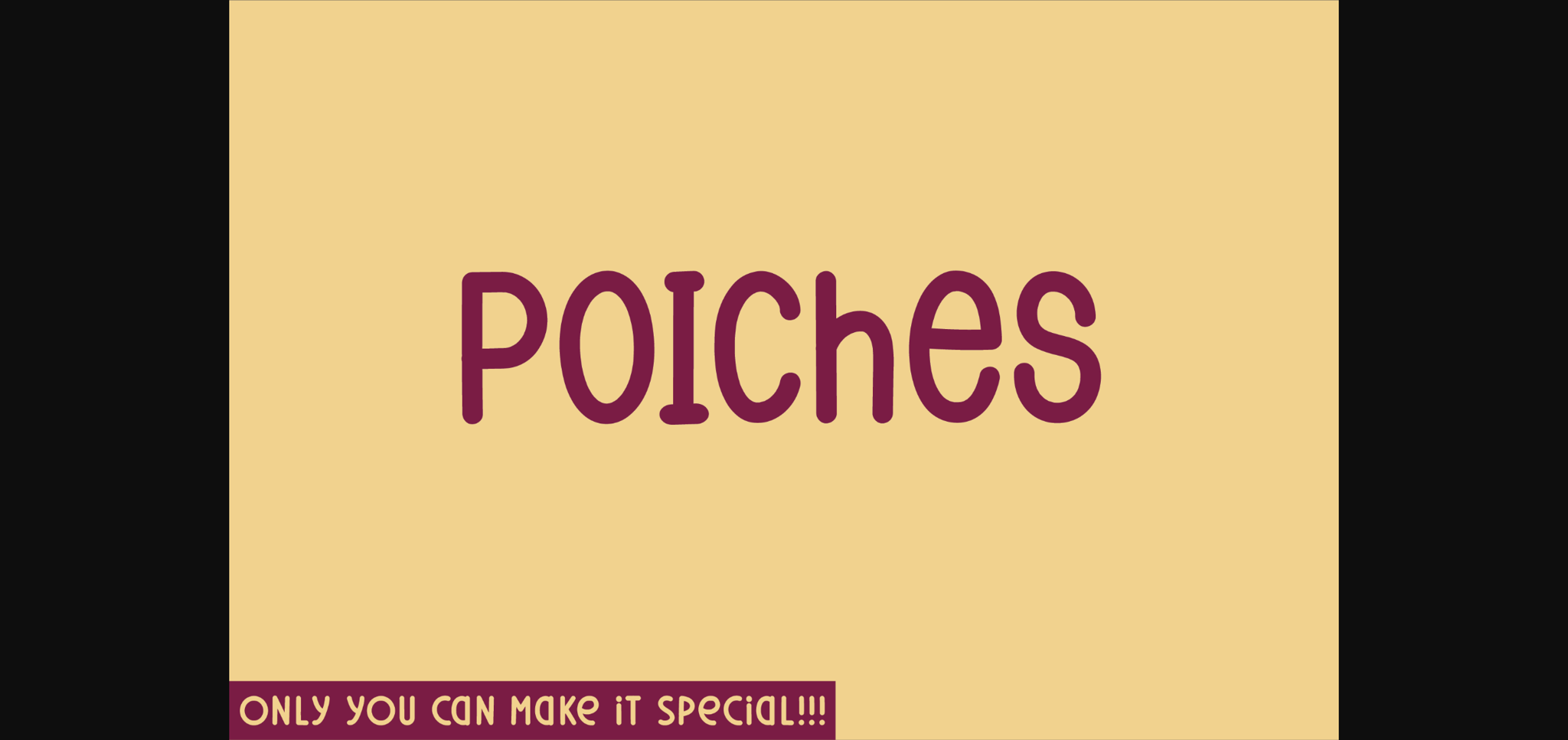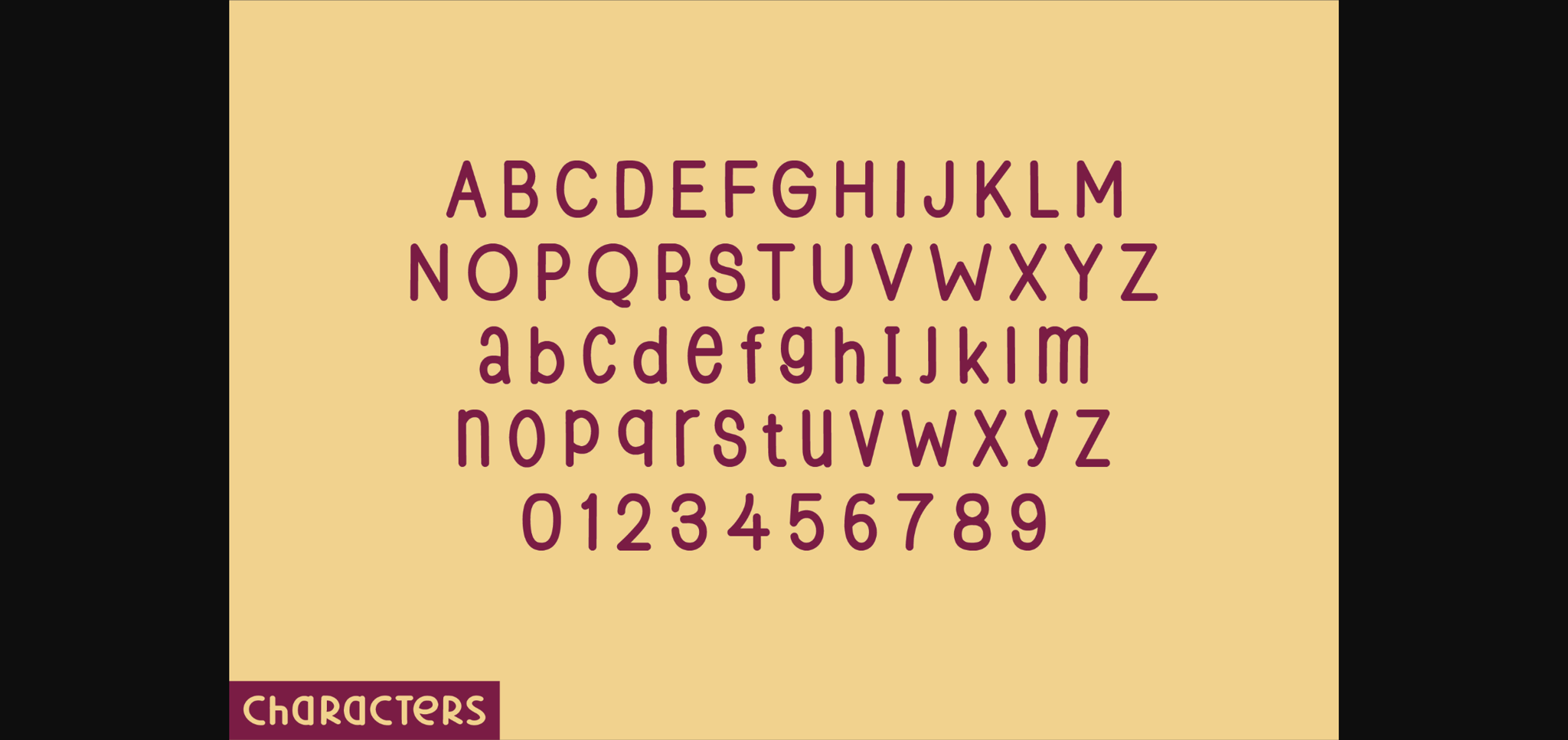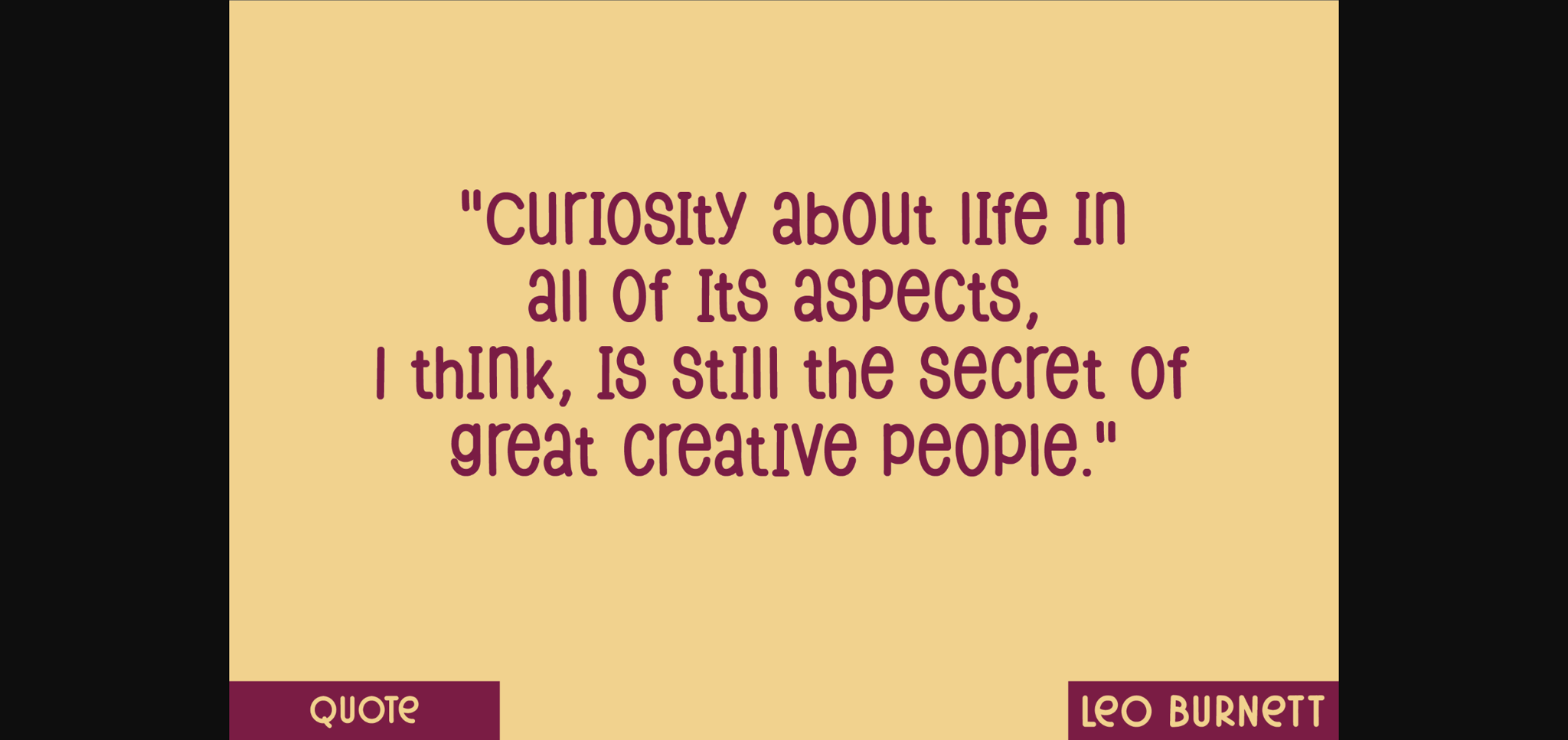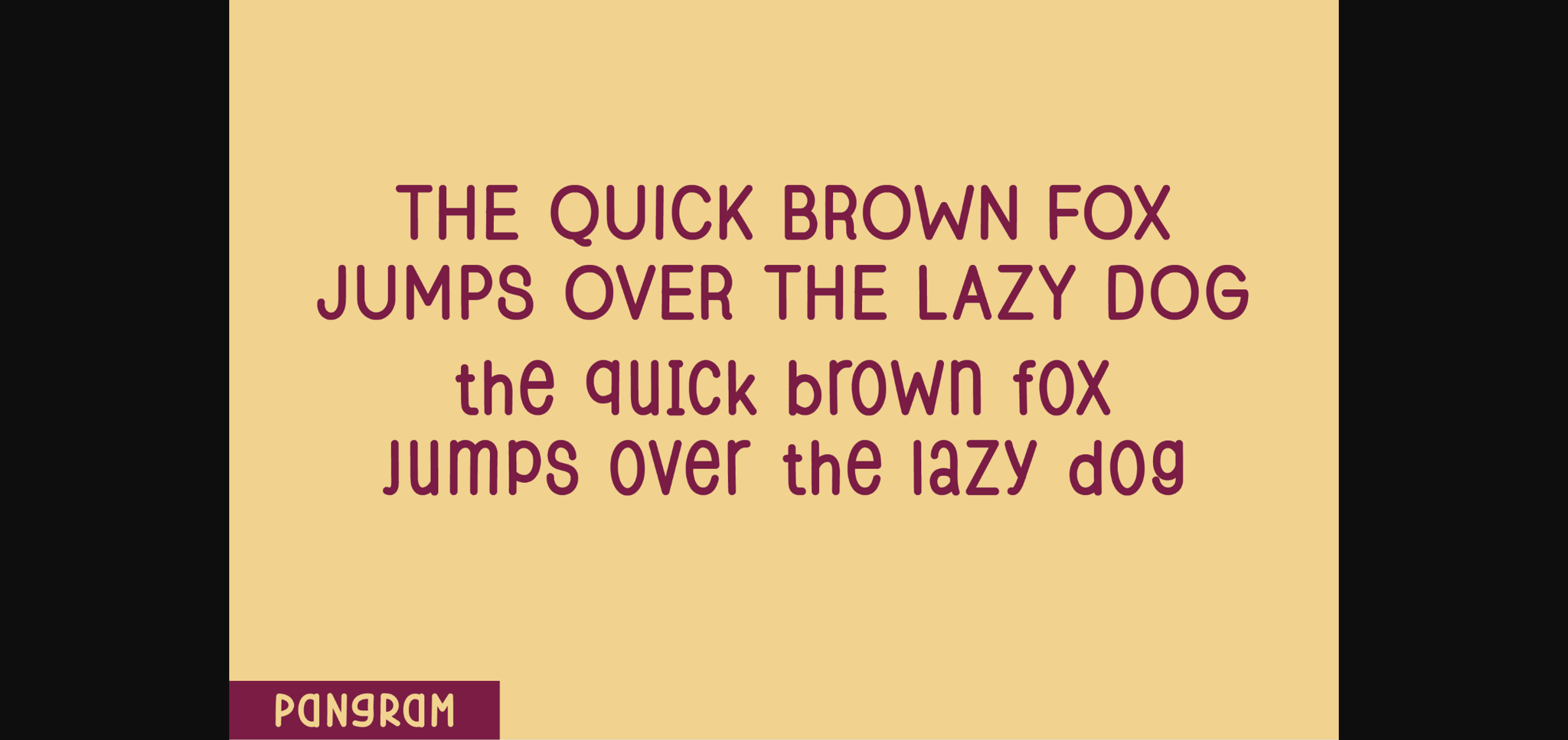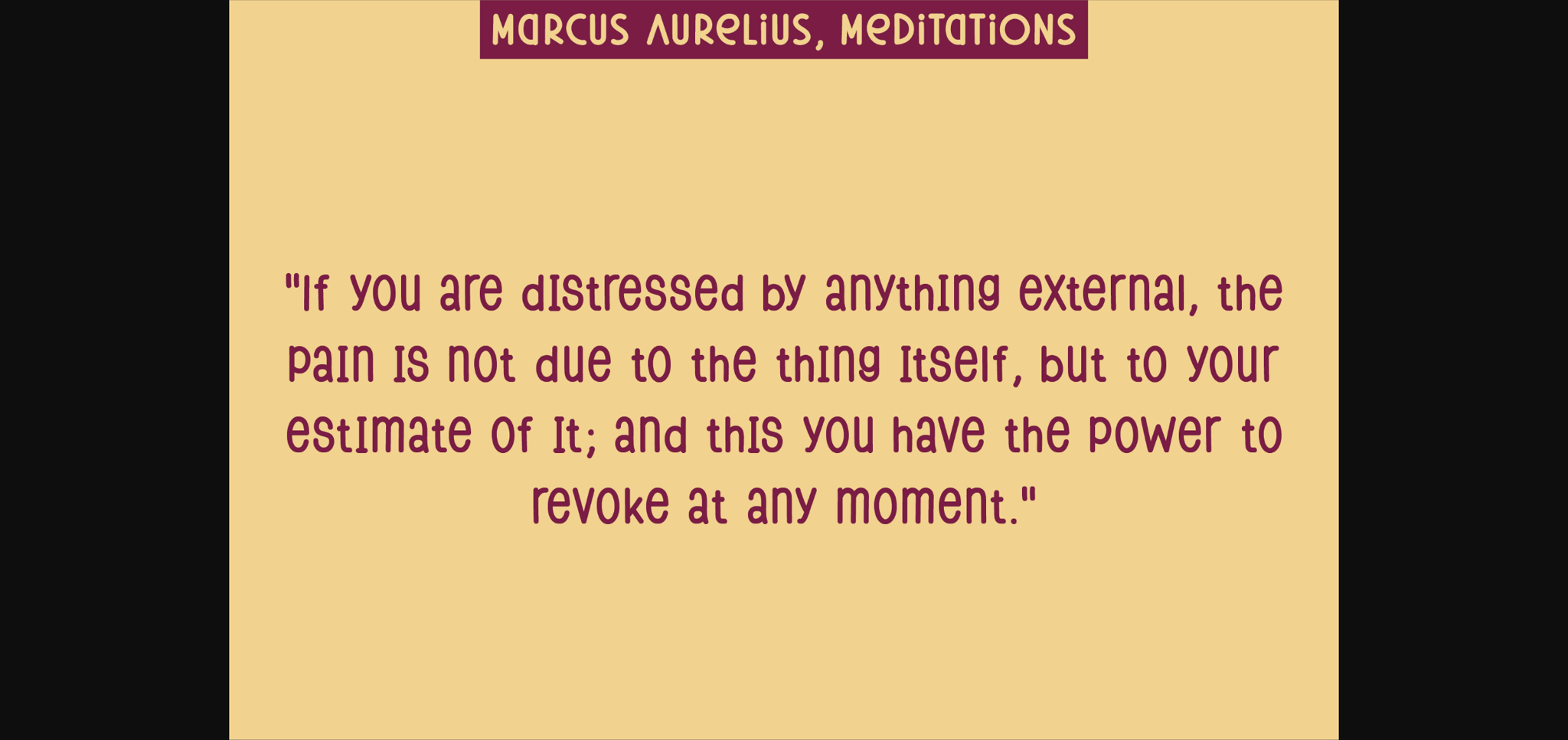
Poiches Font
About Poiches Font
Unveiling Poiches, a striking display font that plays with the classic sans serif structure. The distinct identity of Poiches lies in its rounded letter tips, adding a touch of sweetness and charm. These tender curves elicit a delightful visual appeal, making Poiches an optimal choice for designs that strive to portray a whimsical and enchanting story. Poiches conveys an attractive and engaging aesthetic, perfect for the creation of a delightful and impactful message.